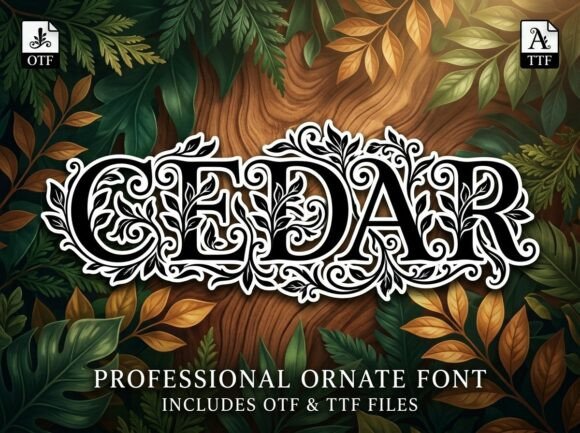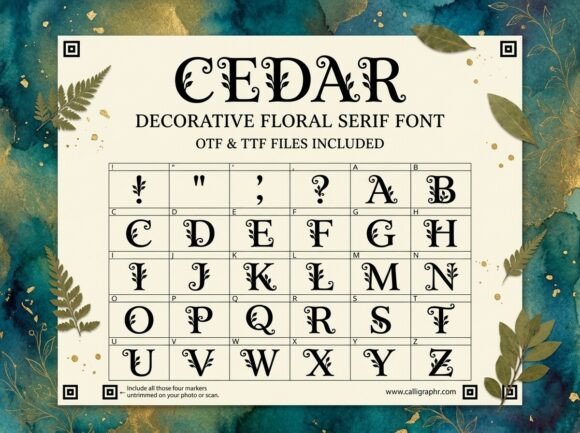
Introducing Cedar Font: Elevate Your Typography with Natural Elegance
In the world of typography, few fonts capture the essence of nature’s beauty and timeless sophistication as effortlessly as Cedar. This decorative floral serif font is designed to infuse your designs with a sense of organic charm and elegance, making it the perfect choice for a variety of creative projects. From wedding stationery and tea packaging to boutique garden branding and social media headers, Cedar’s unique blend of classic and botanical elements is sure to leave a lasting impression.
The Unique Characteristics of Cedar Font
Cedar’s design is distinguished by its elegant, high-contrast letterforms that exude a sense of refinement and poise. What sets this font apart, however, are the rhythmic, hand-drawn leaf sprouts that emerge from each character’s stems and terminals. These delicate flourishes not only add a touch of whimsy and playfulness but also evoke the beauty of the natural world. The result is a typeface that feels both sophisticated and earthy, perfect for designers and crafters looking to add a touch of organic charm to their work.
Cedar Font in Design Applications
Cedar’s versatility and aesthetic appeal make it an excellent choice for a wide range of design applications. Here are a few ways you can use Cedar to elevate your projects:
- Wedding Stationery: Add a touch of romance and elegance to your wedding invitations, save-the-dates, and thank-you cards with Cedar’s beautiful, floral serifs.
- Artisanal Tea Packaging: Stand out in the specialty tea market with Cedar’s unique blend of sophistication and natural charm, perfect for labeling and packaging.
- Boutique Garden Branding: Bring the beauty of the garden to your brand with Cedar’s botanical-inspired design, ideal for logos, signage, and marketing materials.
- Social Media Headers: Make a statement on social media with Cedar’s high-impact, graceful, and earthy aesthetic, perfect for headers and banners.
Why Choose Cedar Font?
With so many fonts available, why choose Cedar for your design projects? Here are a few compelling reasons:
- Timeless Appeal: Cedar’s classic design ensures that your work will remain stylish and relevant for years to come.
- Organic Charm: The font’s botanical elements add a unique, organic feel that sets it apart from more traditional typefaces.
- Sophisticated yet Approachable: Cedar strikes the perfect balance between sophistication and approachability, making it suitable for a wide range of audiences and applications.
- Versatility: From elegant wedding stationery to earthy social media headers, Cedar’s versatility makes it an excellent addition to any designer’s toolkit.
Tips for Using Cedar Font Effectively
To get the most out of Cedar, consider the following tips:
- Pair with Neutrals: Cedar’s bold, floral serifs make it a statement font. Pair it with neutral fonts or backgrounds to let its beauty shine.
- Experiment with Colors: While Cedar looks stunning in traditional black and white, don’t be afraid to experiment with colors that complement its natural, earthy vibe.
- Pay Attention to Scale: Cedar’s intricate details are best appreciated at larger sizes. Use it for headlines or titles to make the most of its unique design.
Cedar font offers a unique opportunity to infuse your typography with natural grace and timeless elegance. Its distinctive blend of sophisticated design and organic charm makes it an invaluable asset for designers and crafters looking to create memorable and impactful work. Whether you’re designing wedding stationery, artisanal tea packaging, boutique garden branding, or social media headers, Cedar is sure to bring a touch of botanical beauty to your projects. Embrace the natural elegance of Cedar and elevate your designs to new heights.